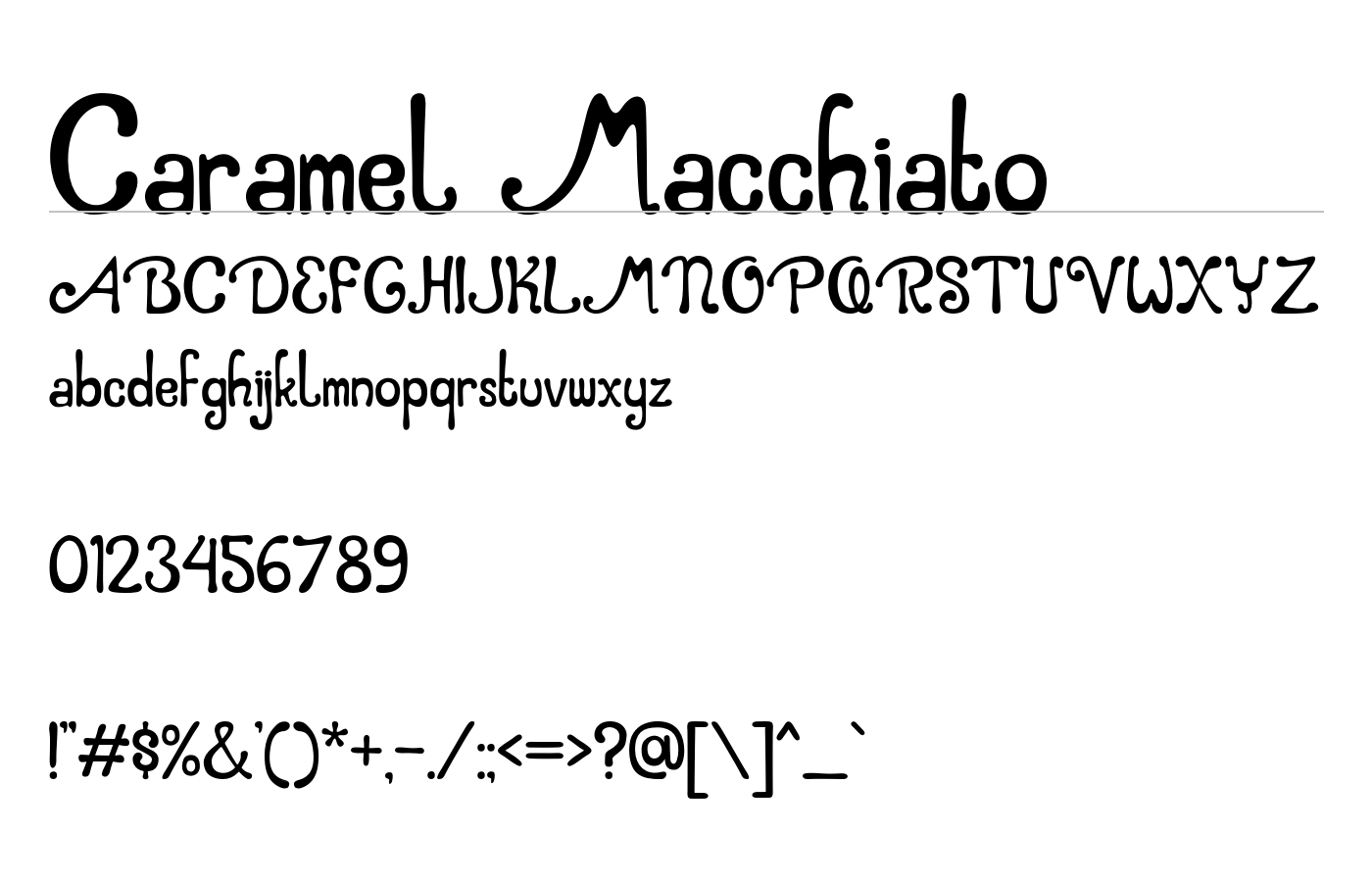
Caramel Macchiato is a playful and whimsical serif font with a hand-drawn feel, featuring unique curled terminals and a mix of round and irregular shapes. Its moderate weight and medium x-height give it good readability, while the quirky letterforms add a friendly and informal personality. This font works best for creative branding, packaging, and fun headlines where a lively, approachable style is desired.
Caramel Macchiato Font
About Caramel Macchiato Font